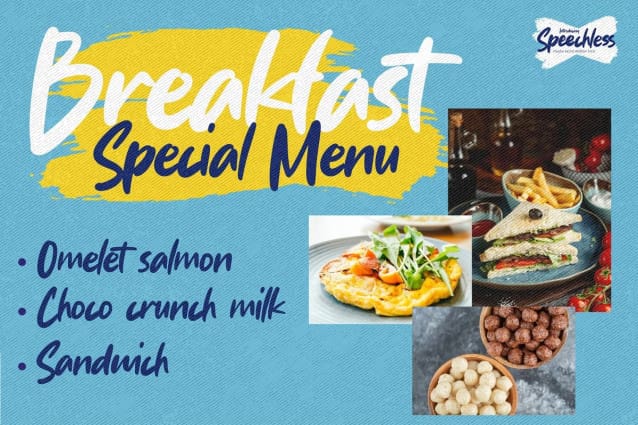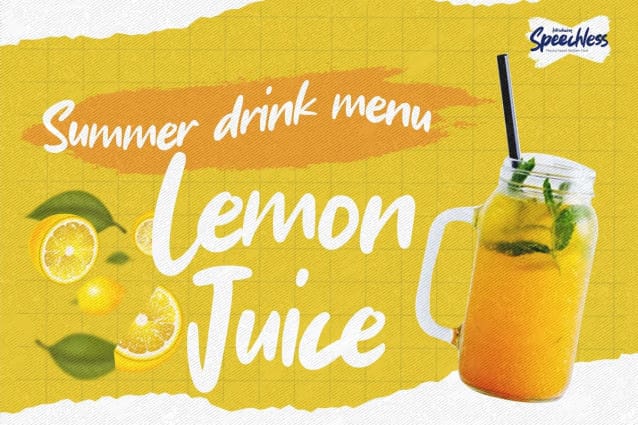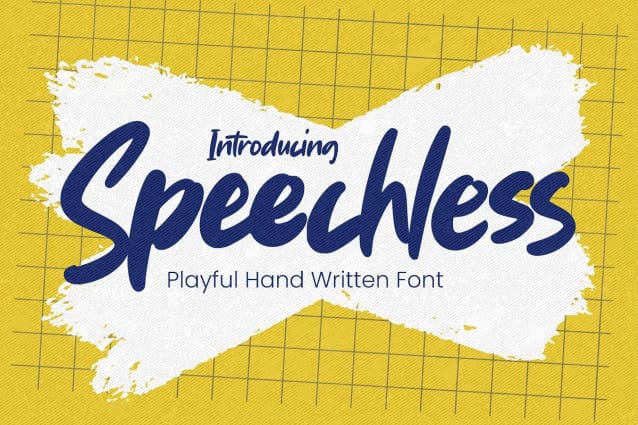
Speechless Playful Font
Speechless Playful Font, is a Playful Handwritten Font with a natural handwritten feel. This handmade font will make your design has a beautiful natural touch for each details. It is perfect for any design project as Invitation,logo, book cover, craft or any design purposes. That is why Speechless has authentic and strong characteristic more natural look. You can activate Ligature OpenType panel.